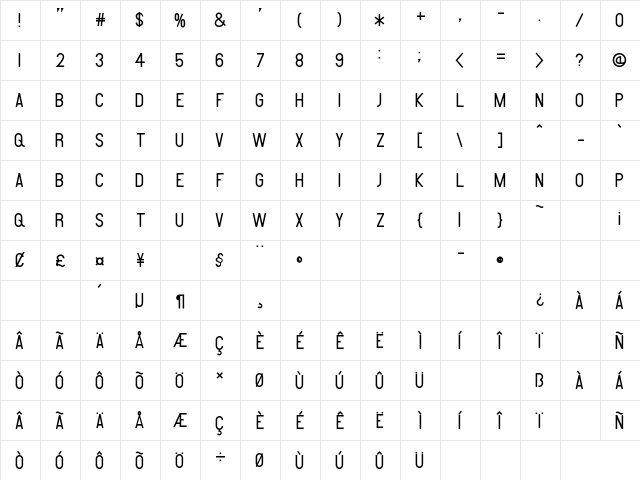
Amare Regular Font Preview
Amare Regular
Amare Regular Font Details
Design Context for Amare Typeface
Amare offers clean, dependable letterforms without strong stylistic allegiance, making it a practical choice for designers who need flexibility.
Pro Tip: Use Amare in both headline and body roles to test its range before committing to a single application.